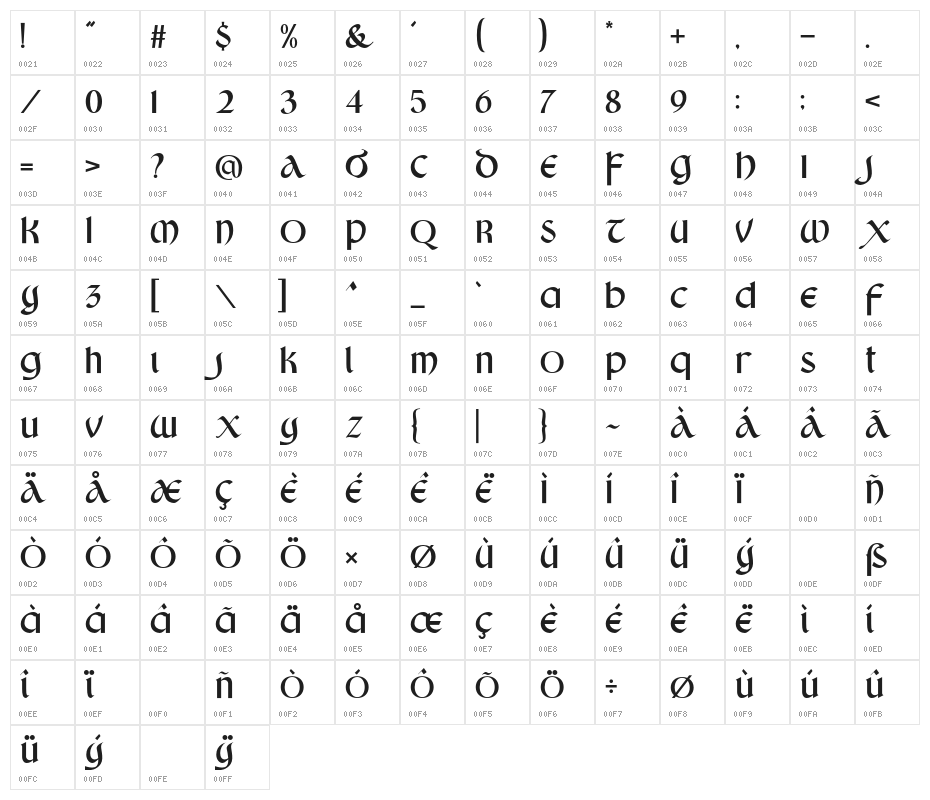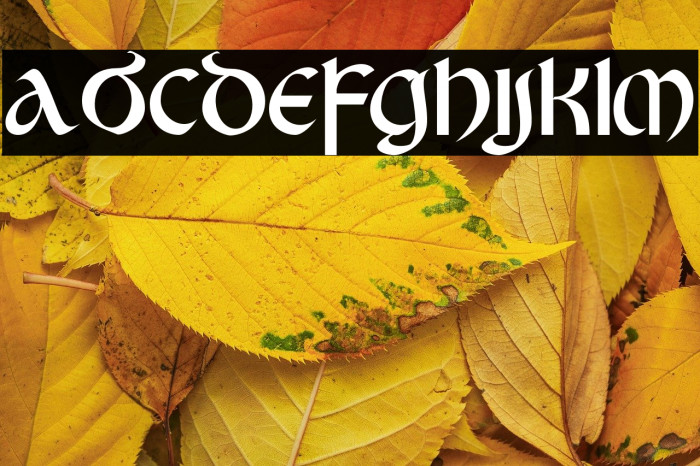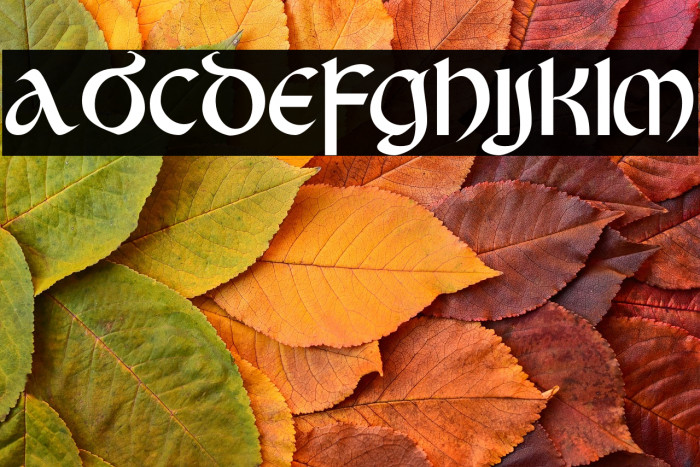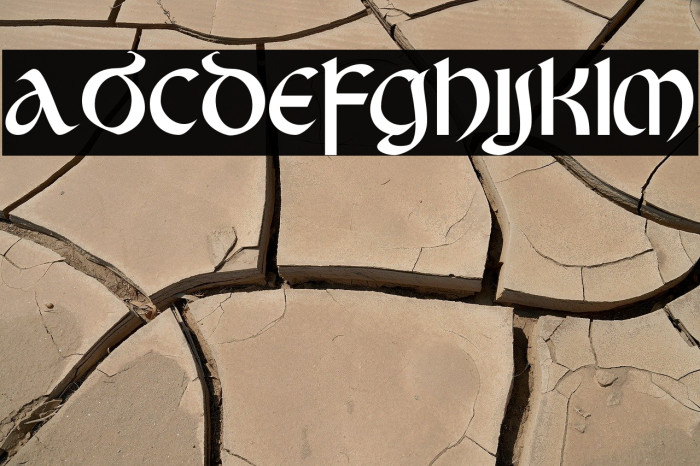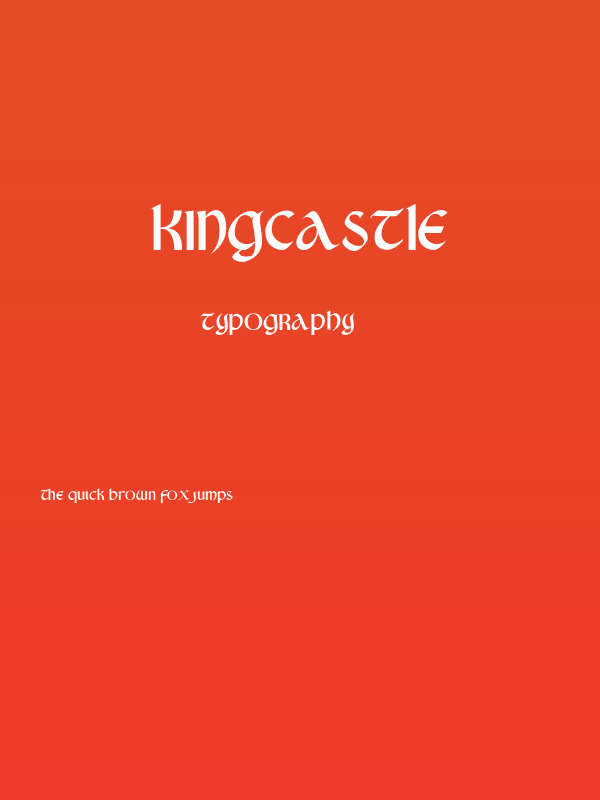
KingCastle Font
KingCastle Description
This font features a distinctive and elegant style with a medieval flair, characterized by its sharp, angular lines and intricate curves. The uppercase letters exhibit a strong presence with their bold strokes and unique serifs, while the lowercase letters maintain a harmonious balance with a slightly more subdued appearance. The numerals are consistent with the overall aesthetic, offering a clear and readable format. Special characters are thoughtfully designed to complement the font's medieval theme, adding a touch of sophistication. The font's overall design is both decorative and functional, making it suitable for a variety of creative applications.
| Overall Style | Vintage |
| Use Case | Logos, Headlines, Decorative text |
| Proposed Projects | Ideal for historical-themed projects, book covers, posters, and branding that requires a touch of elegance and tradition. |